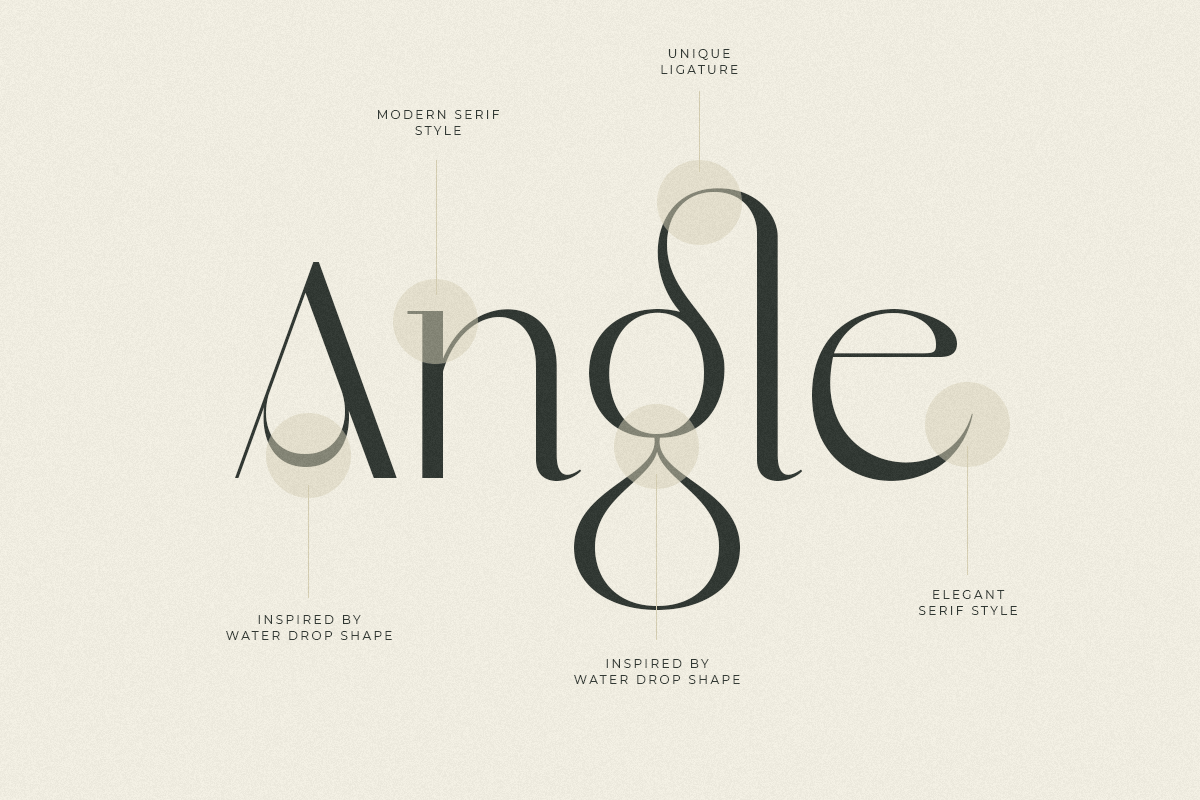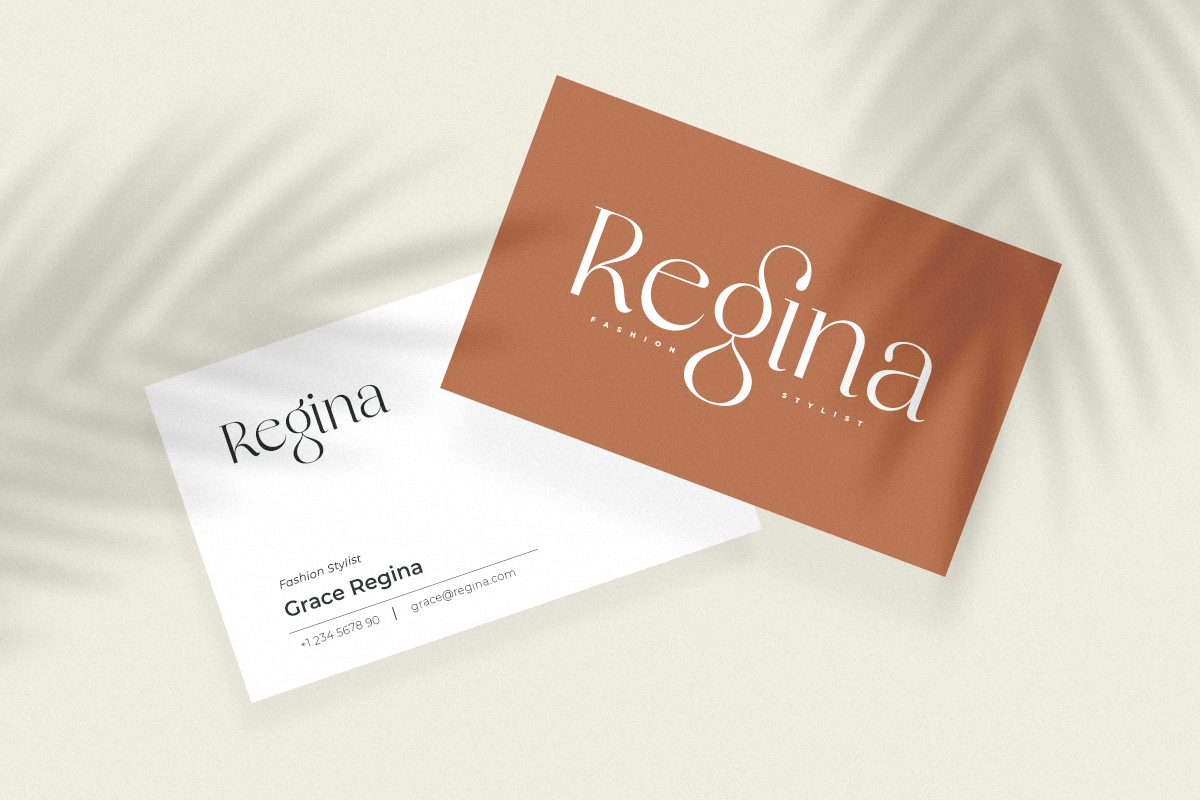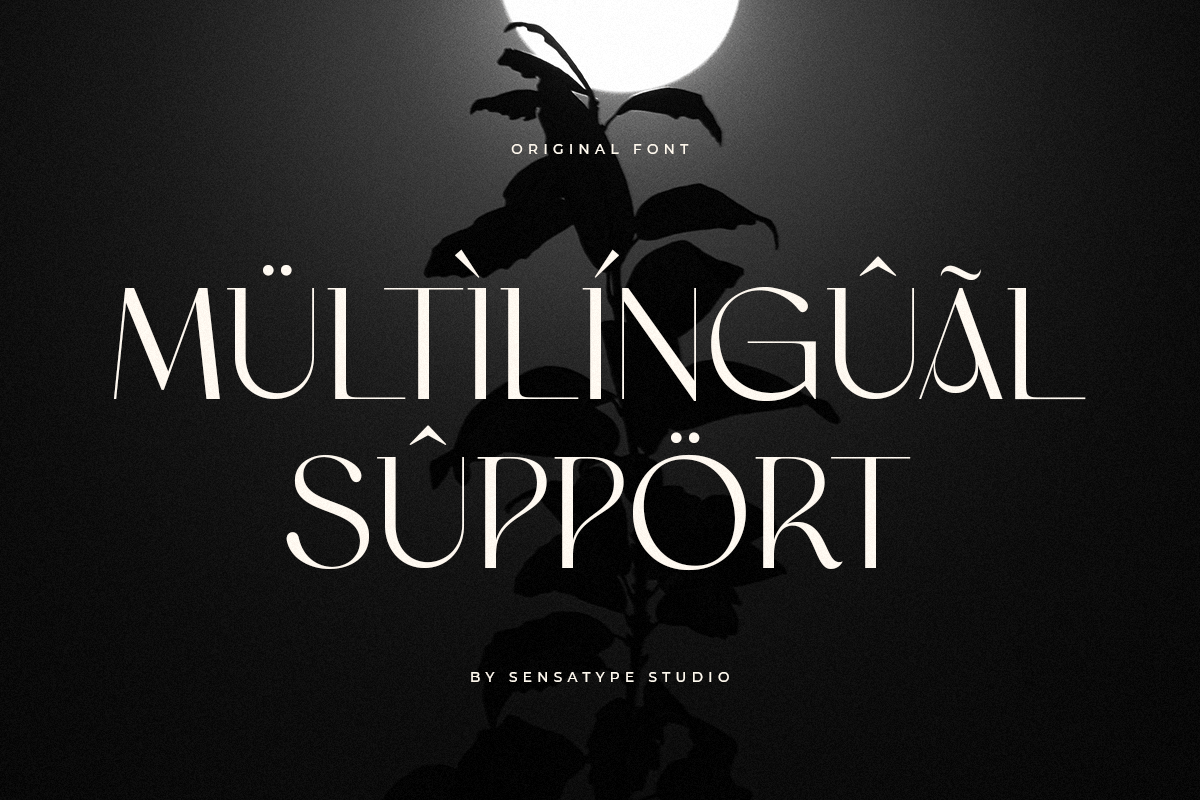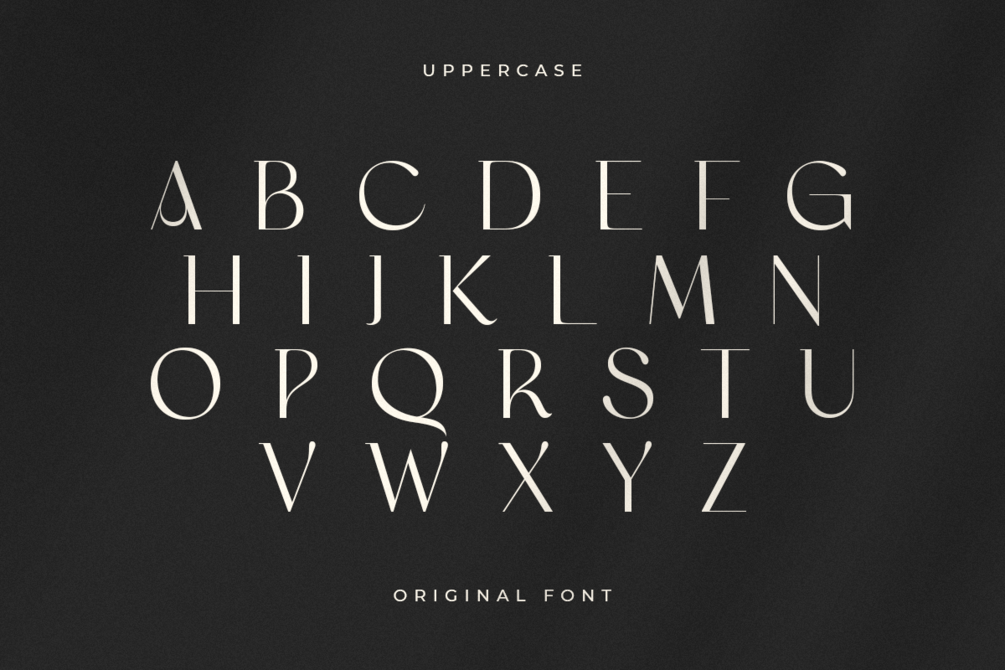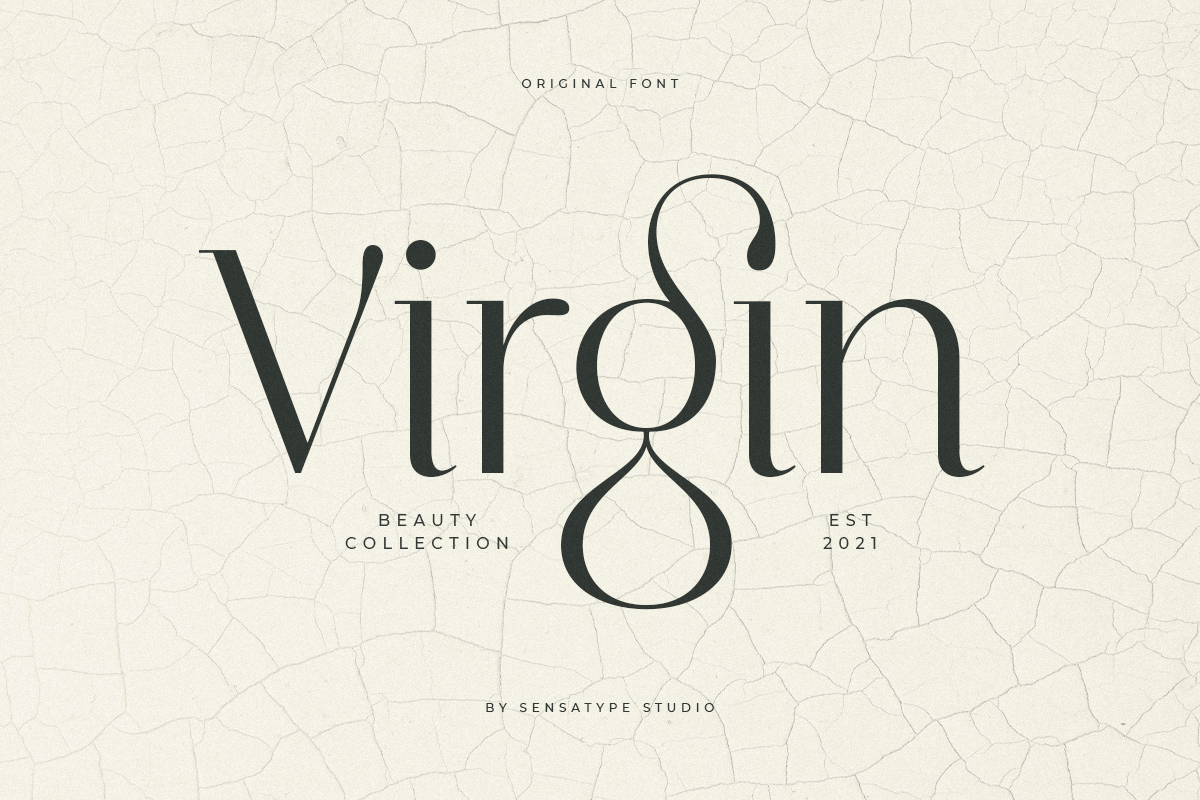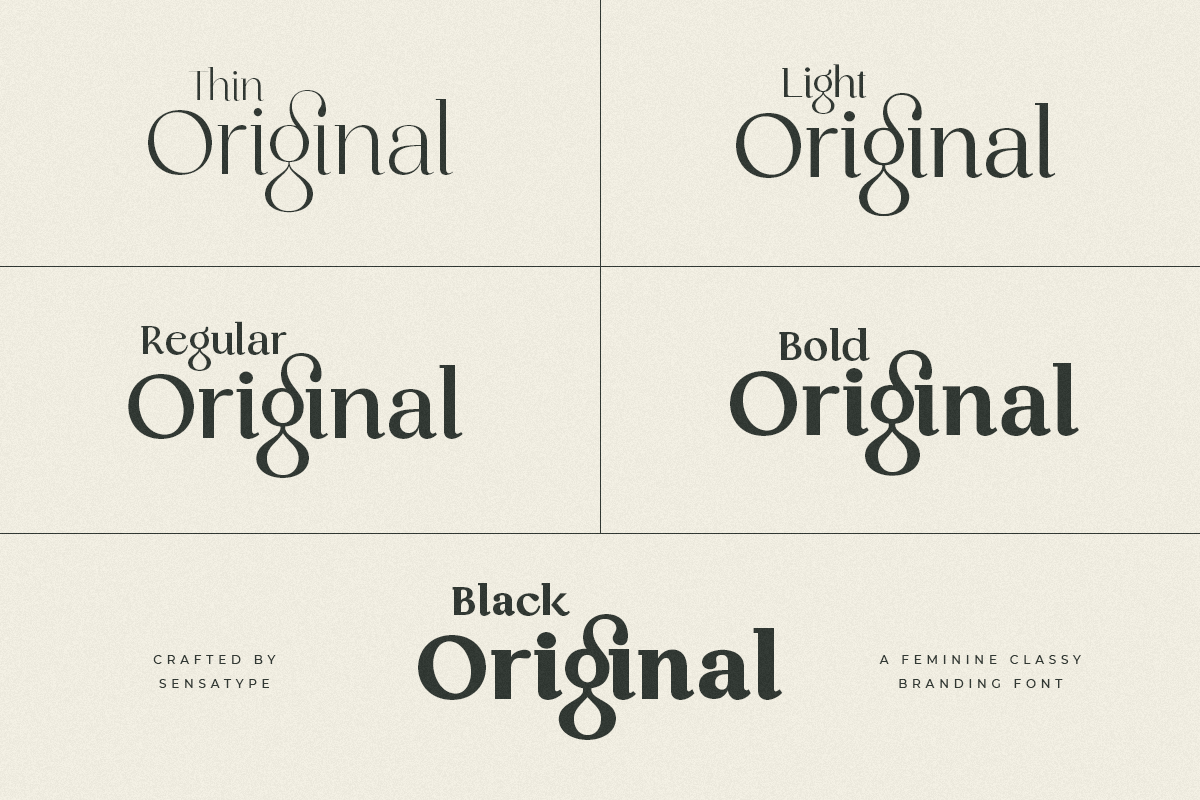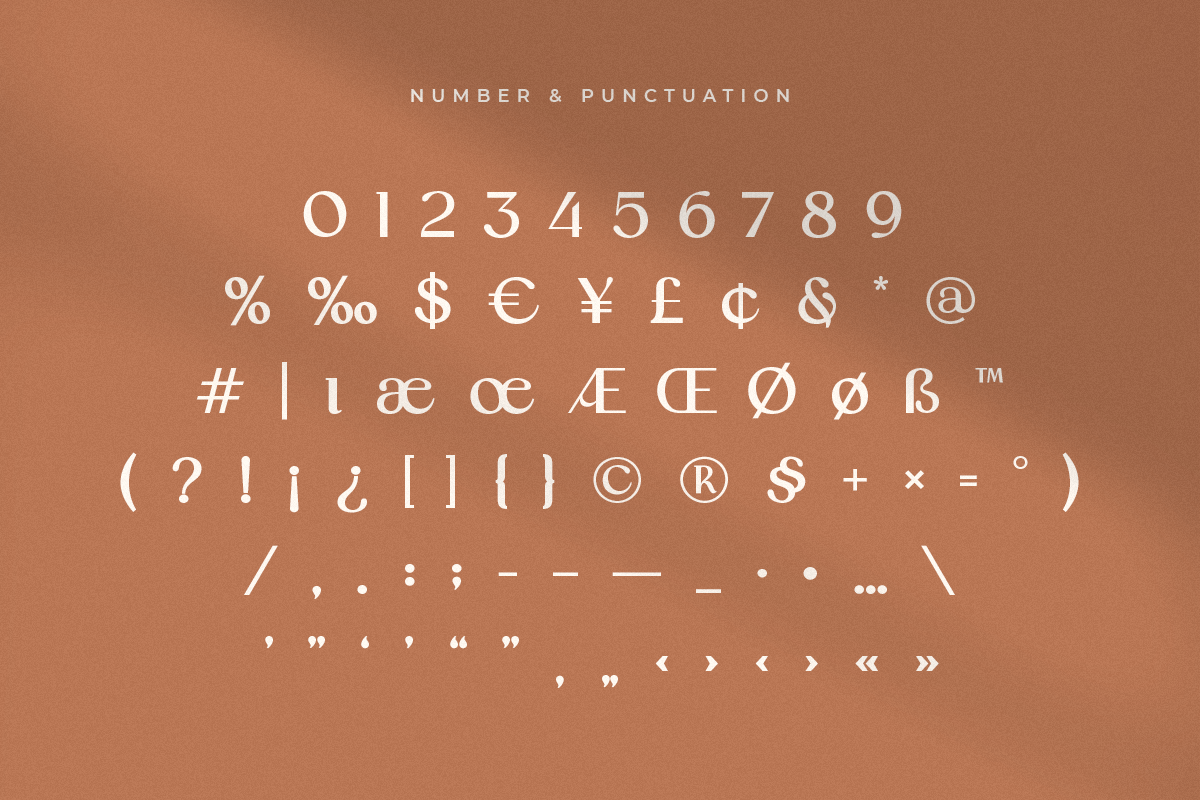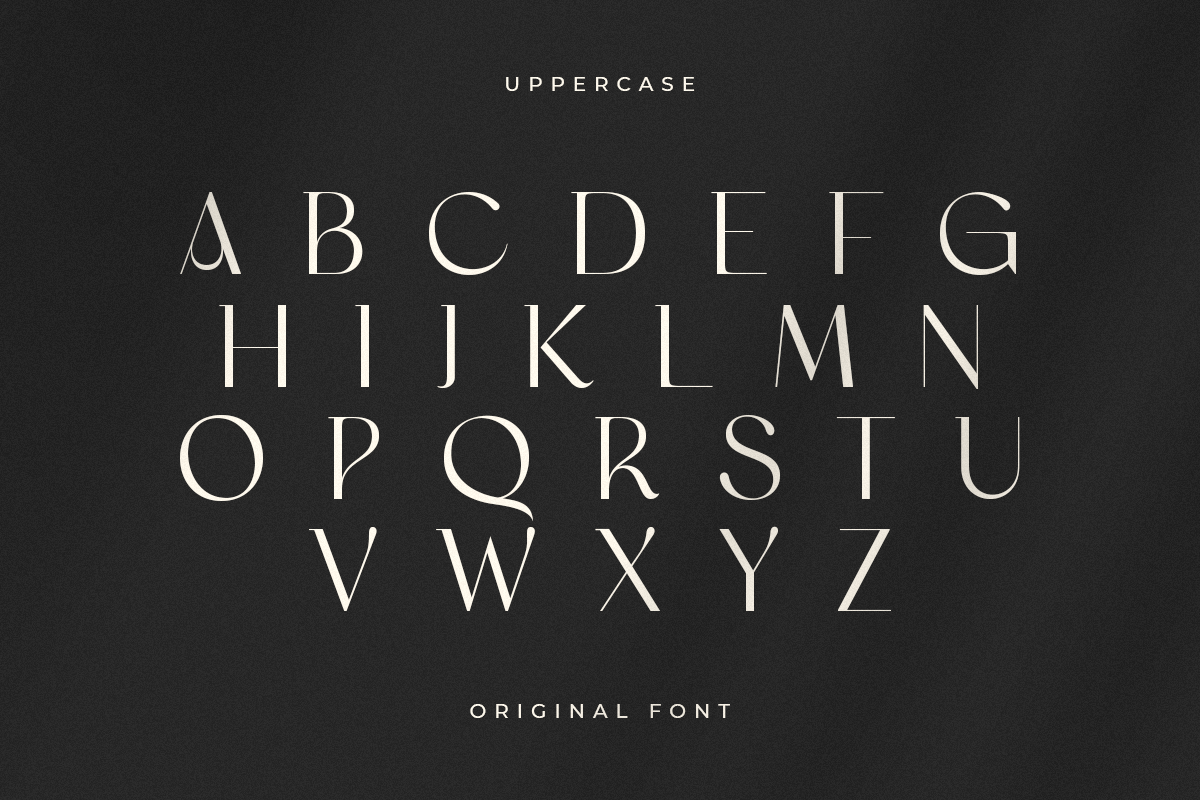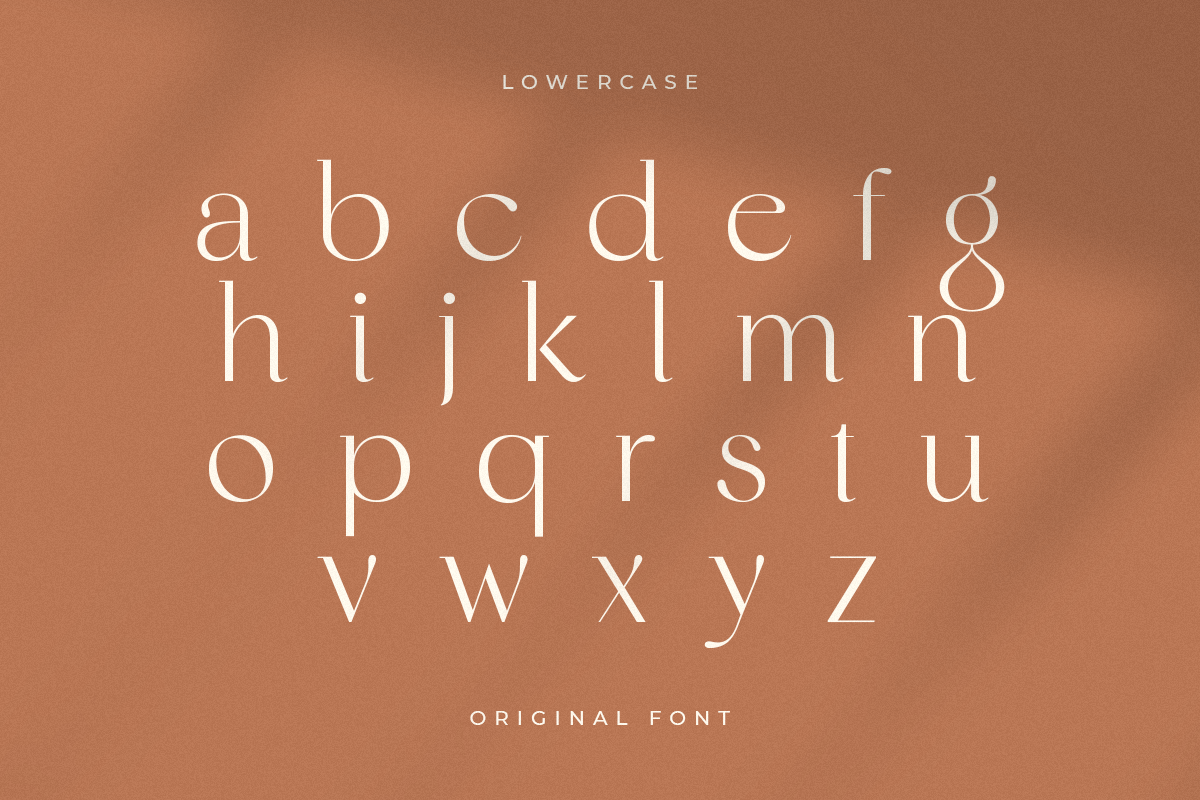
Original - Classy Branding Font
Original is a classy branding font designed to give your projects a polished and sophisticated look. Ideal for logos, branding, packaging, editorial design, and digital or print projects, it combines elegance with readability.
With refined letterforms and balanced proportions, Original provides a timeless and professional aesthetic, making it perfect for designers seeking a premium, stylish, and versatile typeface for high-end designs.
Original – Classy Branding Font Features
• Elegant and classy character set
• Perfect for branding and premium projects
• Includes uppercase, lowercase, numerals, and punctuation
• Suitable for digital and print designs
• OpenType features for added versatility
• Multilingual support